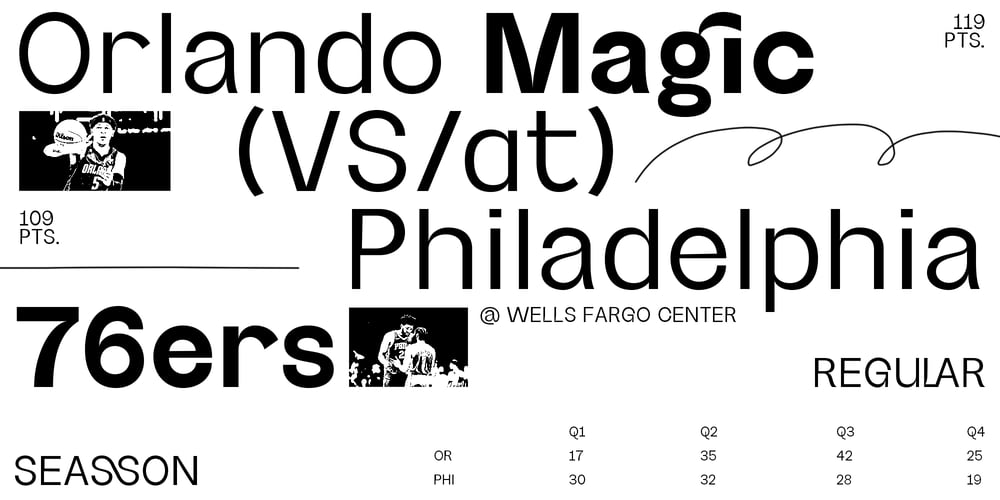
Anti Grotesk
Anti Grotesk font
Anti Grotesk Font Family was designed by Guillermo García Díaz and published by 60 KILOS. Anti Grotesk contains 11 styles and family package options. Anti Grotesk is a personal and internal fight. It tries to build elements capable of building personality, message, and introspection through their own shapes. How to escape from trends being part of them, how to design not establishing commercial and economical interests. Why you started designing and why are you designing today, are some of the concepts that build the universe of Anti Grotesk.